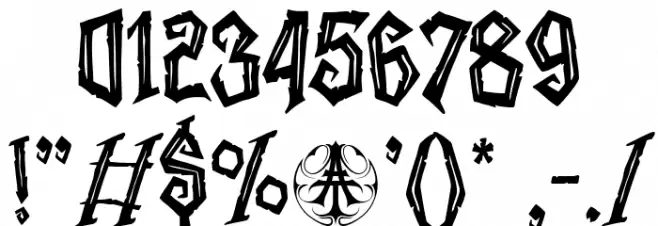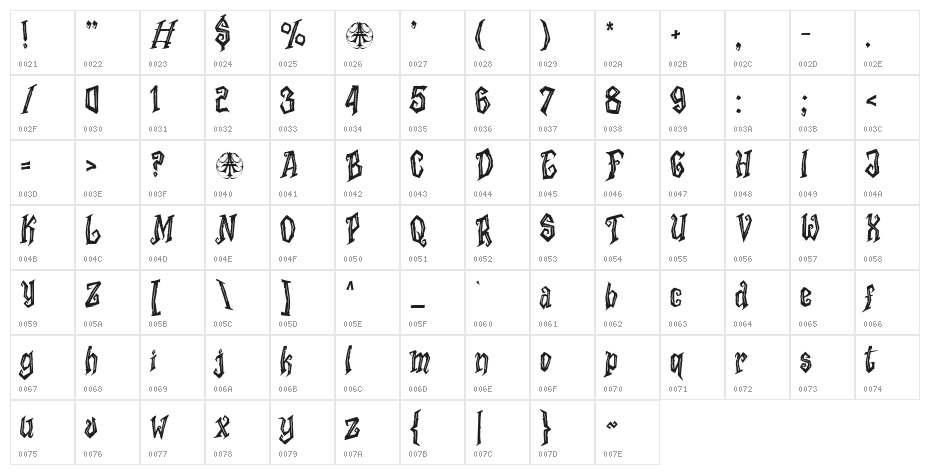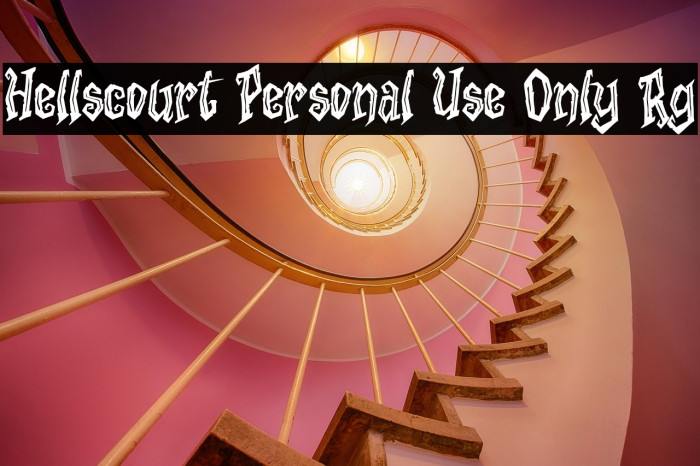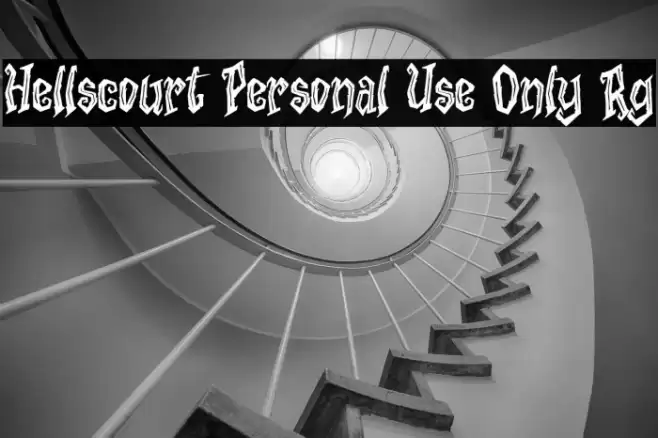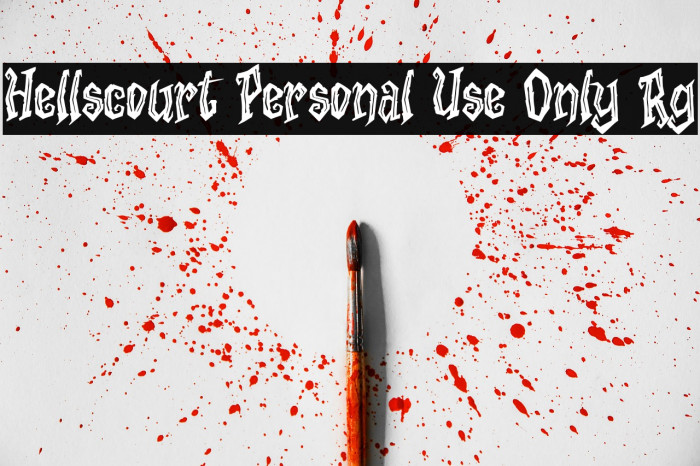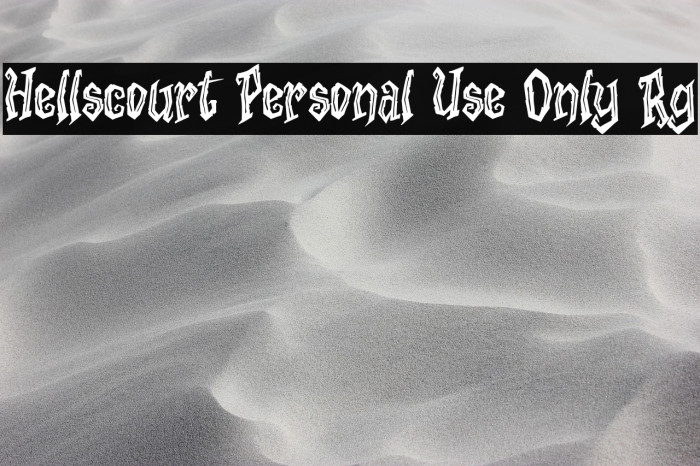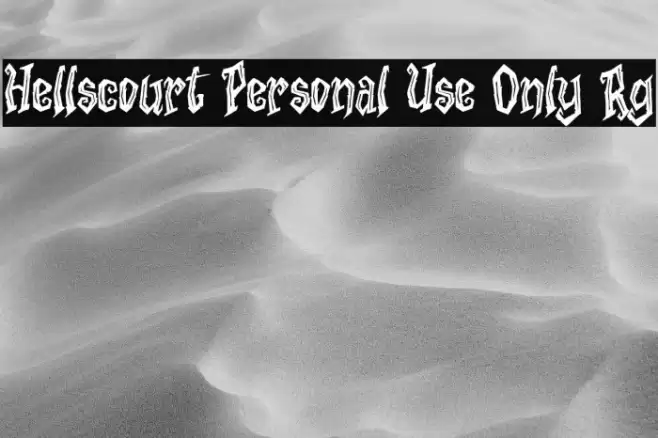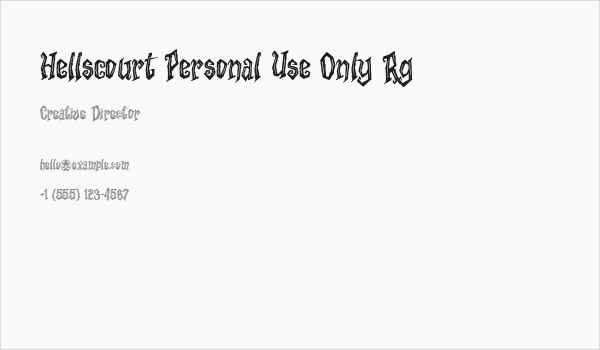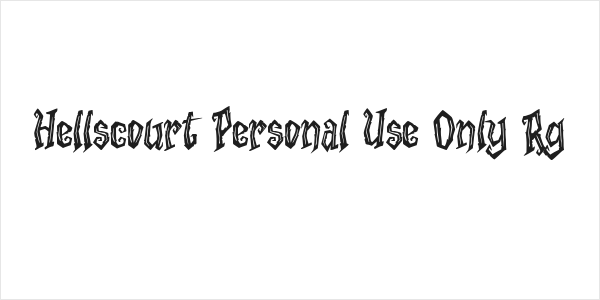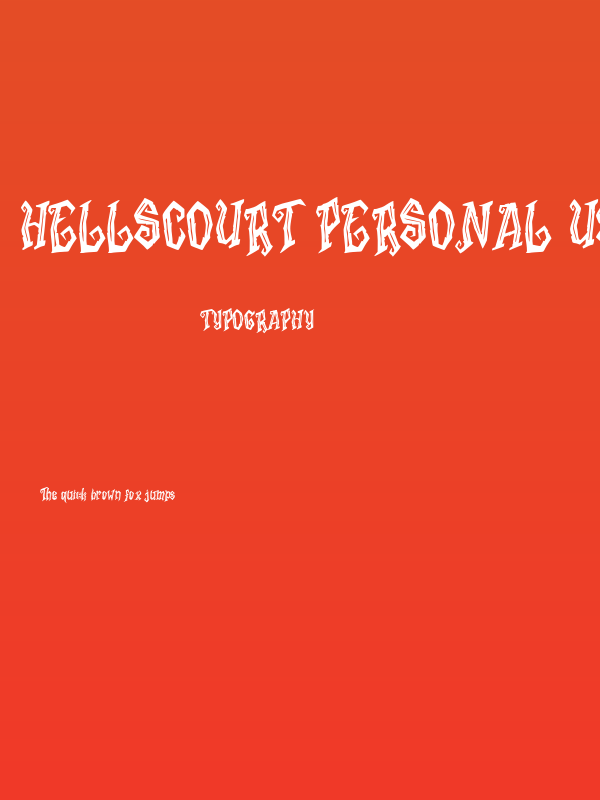
Hellscourt Personal Use Only Rg Font
Hellscourt Personal Use Only Rg Description
This font features a bold and edgy design with sharp, angular lines and a gothic influence. The characters are heavily stylized, with exaggerated serifs and a hand-drawn appearance that gives them a unique, rebellious flair. The uppercase letters are particularly striking, with a strong presence and intricate detailing. The lowercase letters maintain the same boldness, ensuring consistency throughout the typeface. Numbers and special characters are equally distinctive, adding to the font's overall dramatic and impactful style. This font is perfect for projects that require a strong visual statement.
| Overall Style | Gothic, Decorative |
| Use Case | Logos, Posters, Headlines |
| Proposed Projects | Ideal for album covers, posters, tattoos, and any design needing a bold, gothic aesthetic. |